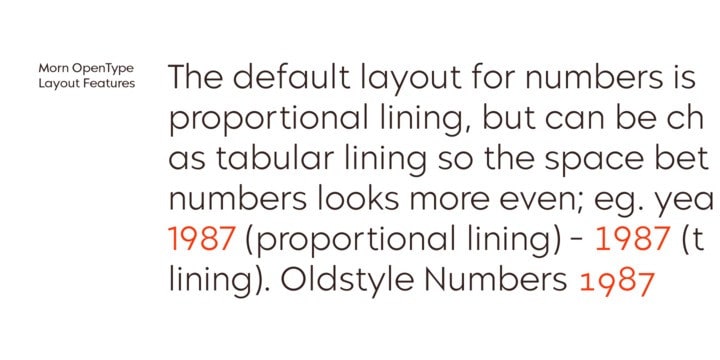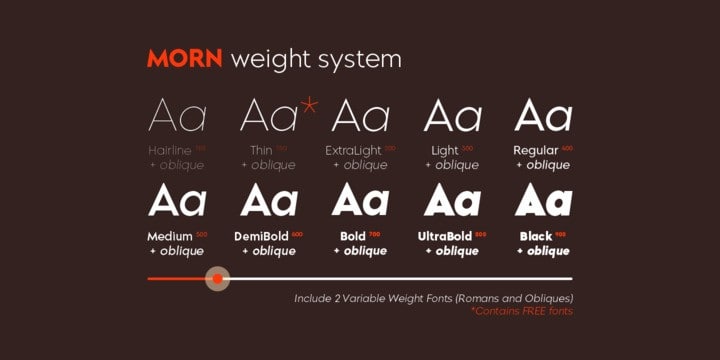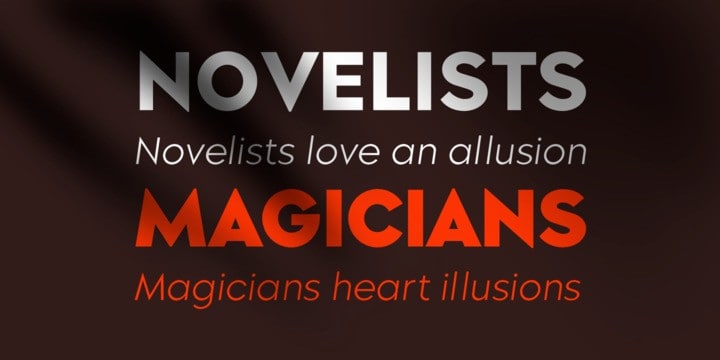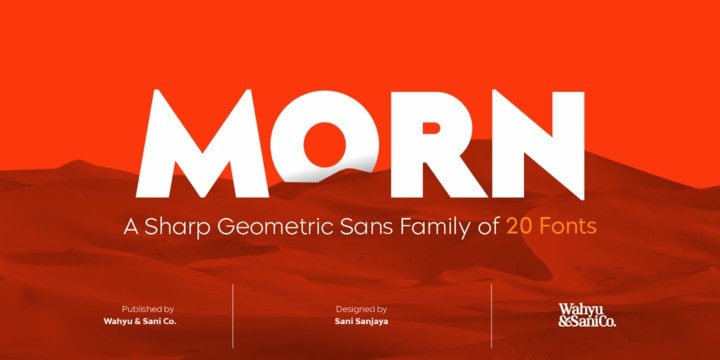
Morn Sans Serif Font Family
Befonts is very pleased to introduce a new modern sans-serif type family. This font takes the decoration out of deco but keeps those vintage curves. It’s a powerful sans serif font made to be a perfect choice for titles and headlines but it’s versatile enough to be a good fit for a multitude of projects. Morn Font is designed and shared by Sani Sanjaya. Morn is a sharp geometric sans font with roman proportion. Every characters are essence from a rectangle (square), a circle and a triangle with require little adjustment to make them appear optically equivalent. It’s has total 20 fonts which are upright and oblique. Each font has 460+ characters, and it supports many Latin languages such as Western Europe, Central/ Eastern Europe, Baltic, Turkish, Romanian.